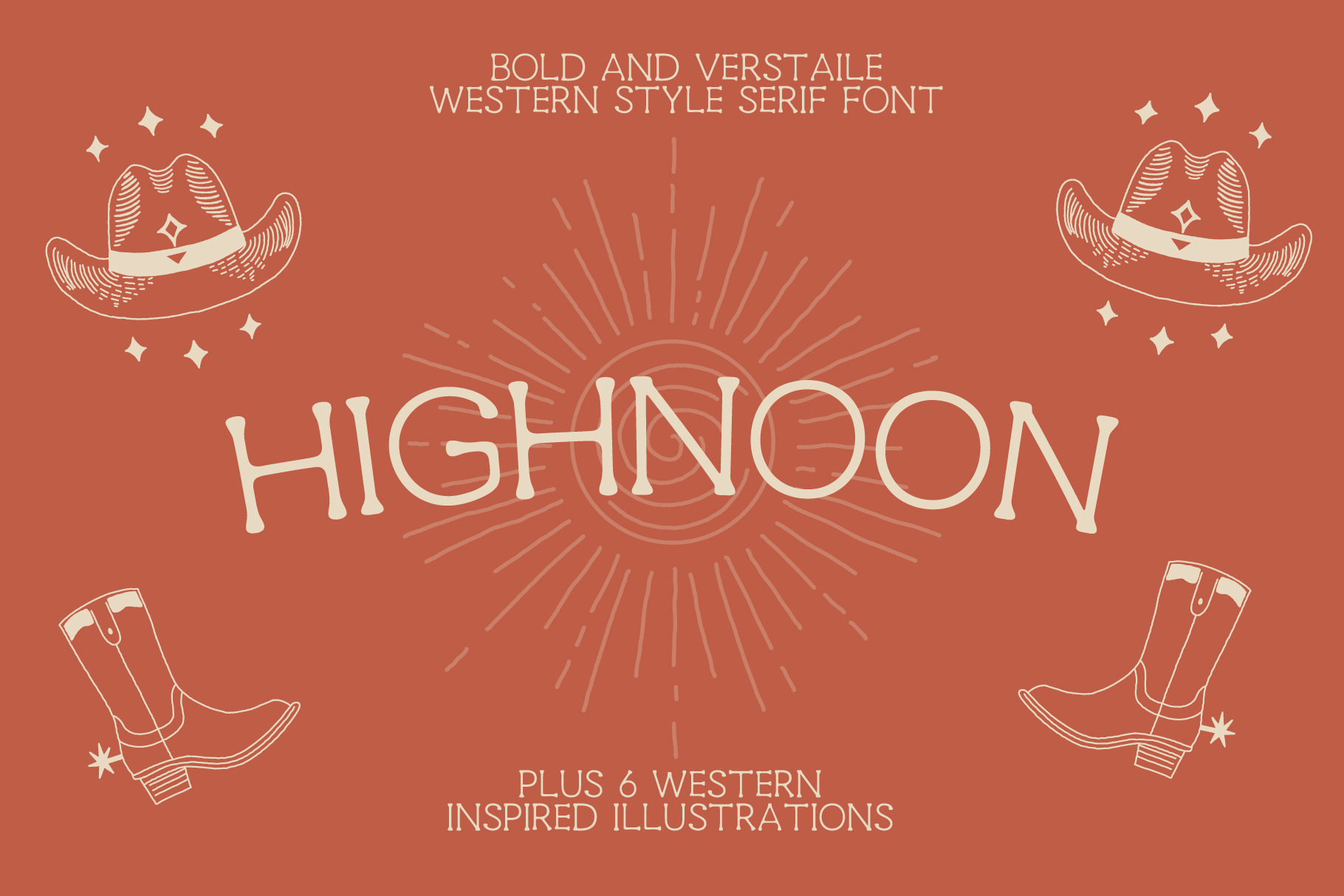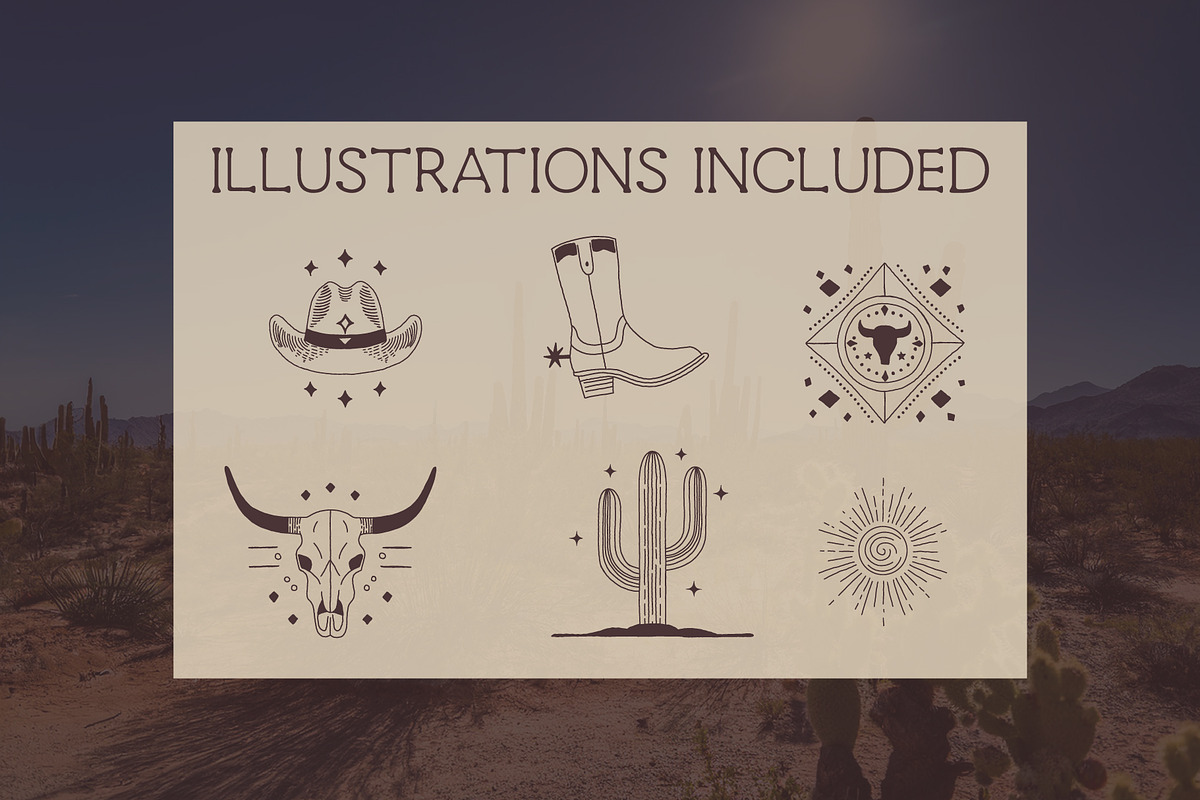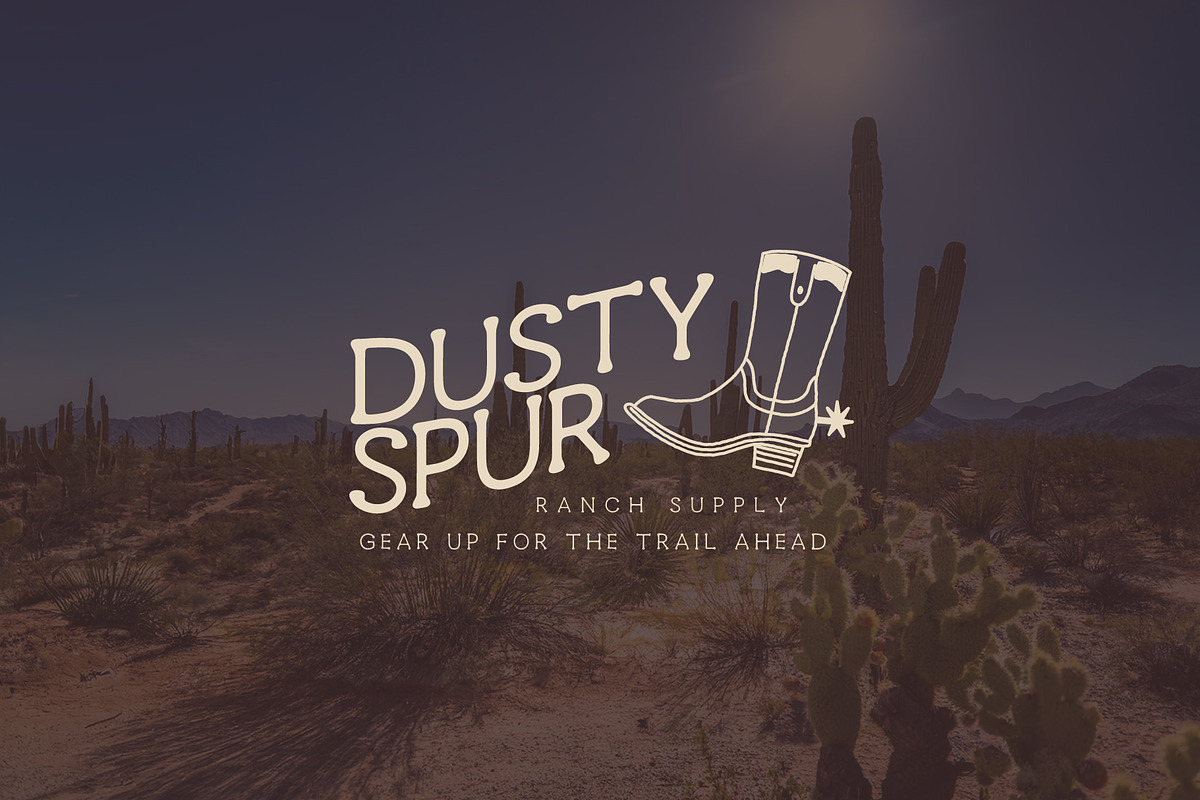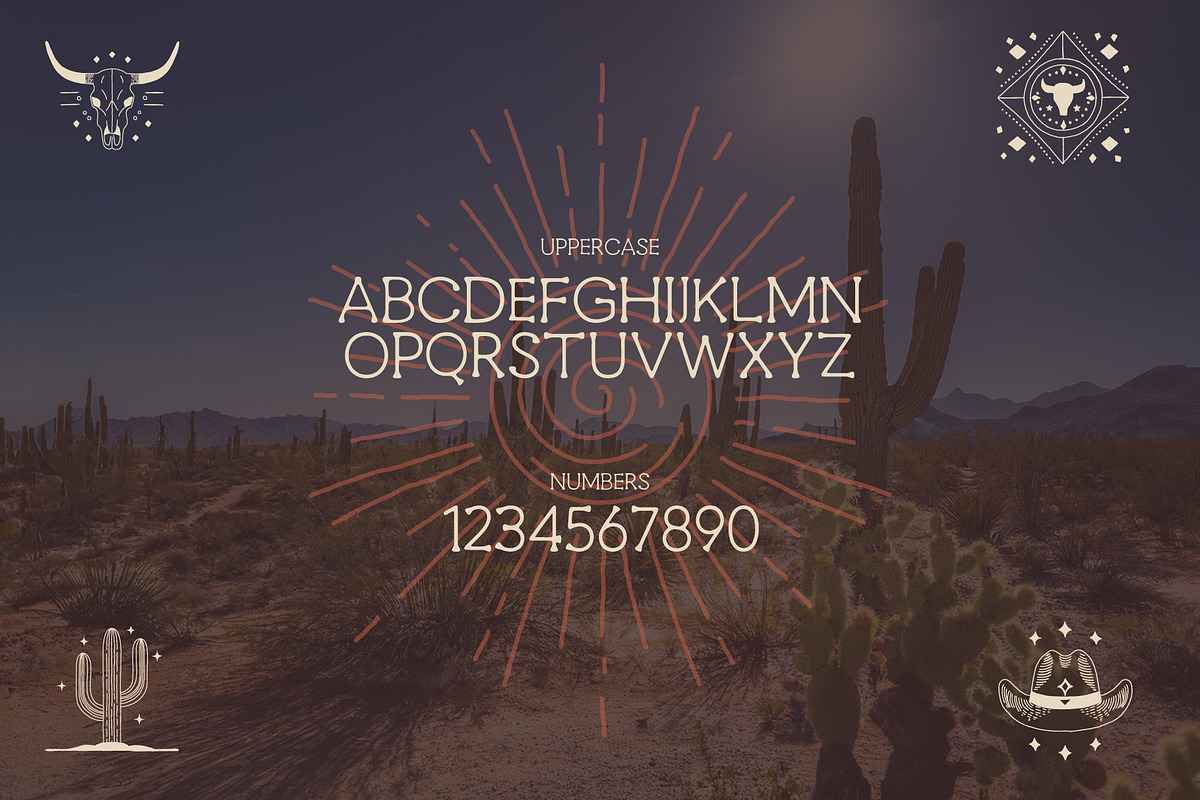
High Noon Font | Western Style Font
Introducing HighNoon, a bold and charming western-inspired display font designed for statement pieces and branding projects! This unique typeface features capital letters, numbers, and six custom illustrations, making it perfect for logos, posters, packaging, and signage that need a distinct and rugged look. Whether you're creating for a modern desert aesthetic or a retro vintage vibe, HighNoon will give your designs that touch of rustic authenticity.
Uppercase Letters (A-Z)
Numbers (0-9)
6 Western-themed illustrations
Bold and versatile western style
Perfect for logos, packaging, and merchandise
Includes hand-drawn illustrations for added flair